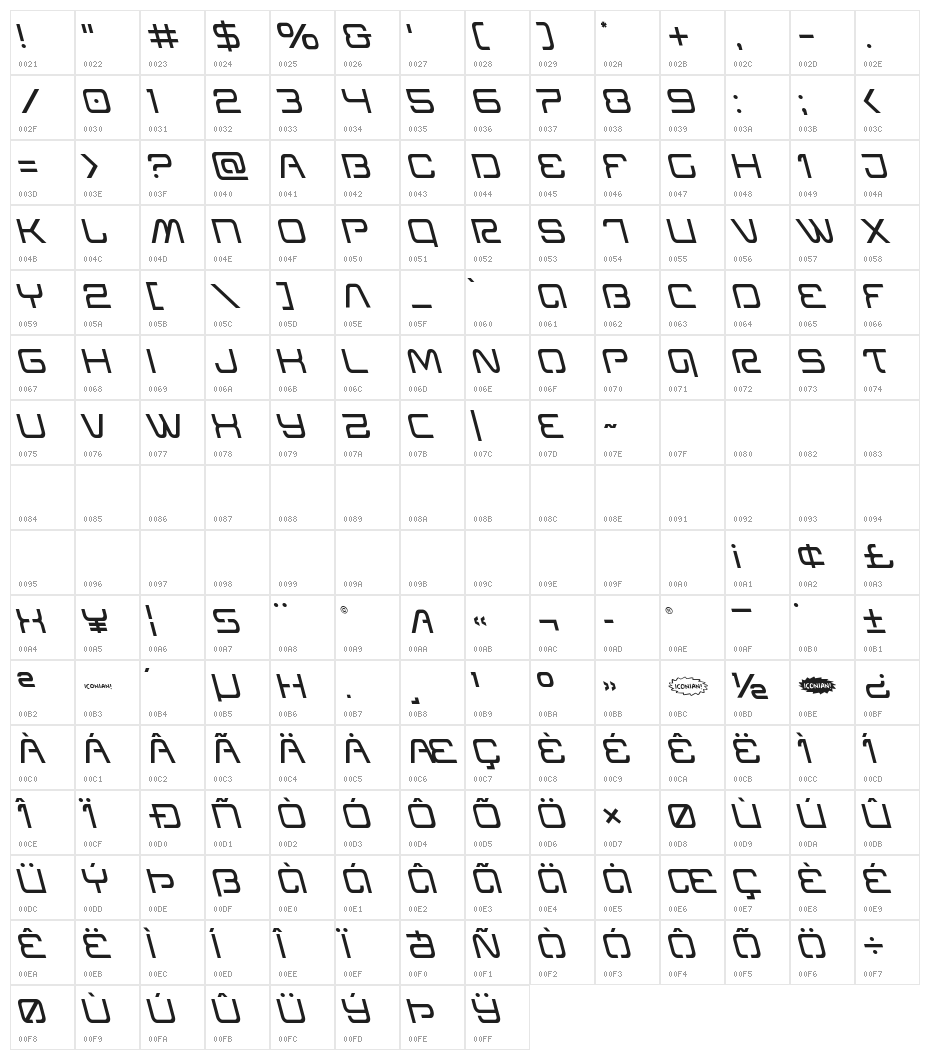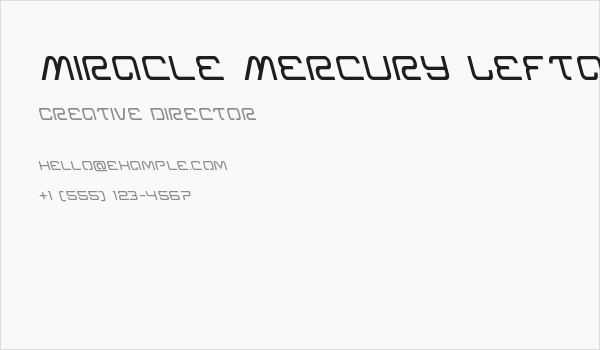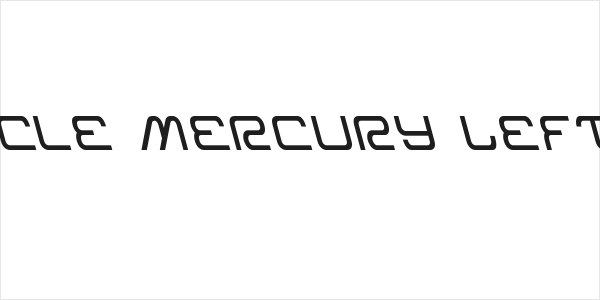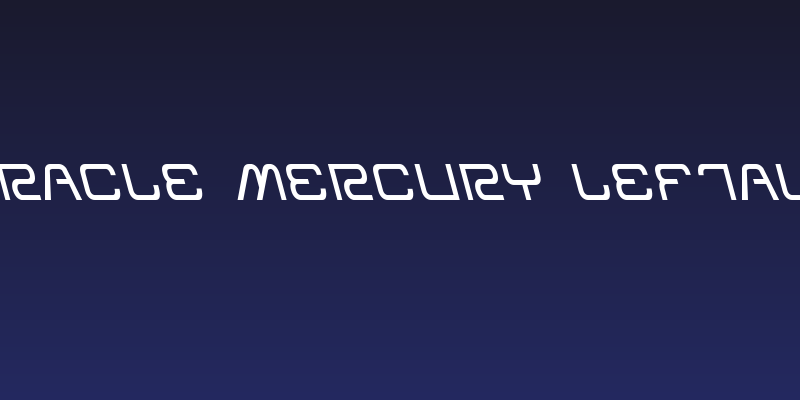
Miracle Mercury Leftalic Font
Miracle Mercury Leftalic Description
This font features a futuristic and geometric design, characterized by its angular and slightly italicized letterforms. The characters are constructed with a consistent stroke width, giving it a uniform appearance. The uppercase and lowercase letters share a similar structure, enhancing the cohesive look of the font. The numerals and special characters maintain the same stylistic elements, ensuring a seamless integration across different types of content. Its unique style is both modern and slightly retro, making it versatile for various design applications.